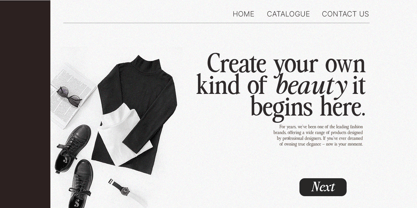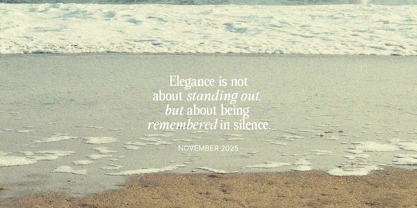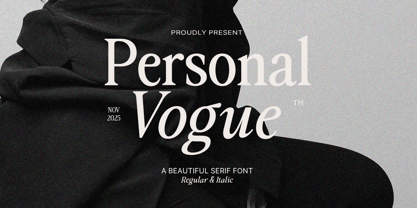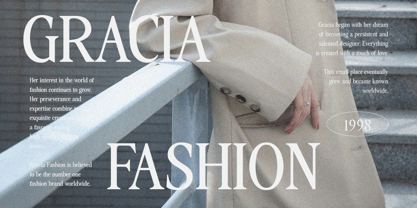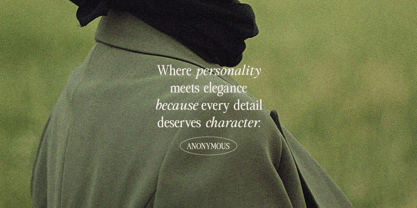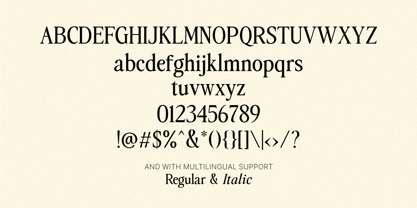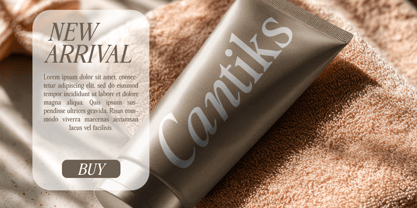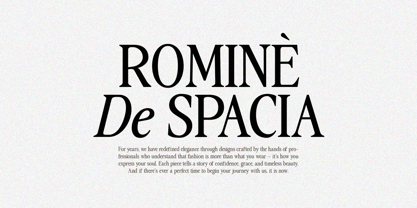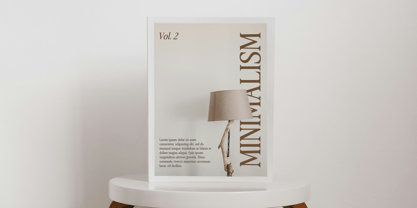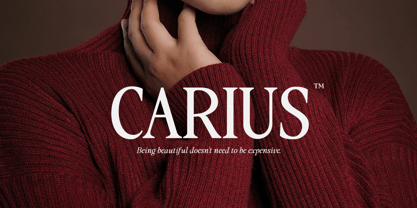
Personal Vogue
by Auliart Studio
The Personal Vogue Font Family was designed by Dzikrul Aulia and published by Auliart Studio. Personal Vogue contains 2 styles and family package options. More about this family
Personal Vogue is a serif typeface that embodies elegance and quiet confidence. Crafted with refined letterforms and graceful contrast, this font is designed to elevate any high-end visual identity. From fashion editorials and cosmetic packaging to minimalist branding and inspiring quotes.
Available in two styles: Regular and Italic it offers versatile options for pairing and composition. Whether you’re designing a brand logo, creating magazine headlines, or crafting elegant social media content, Personal Vogue adds a timeless touch of sophistication.
Designers: Dzikrul Aulia
Foundry: Auliart Studio